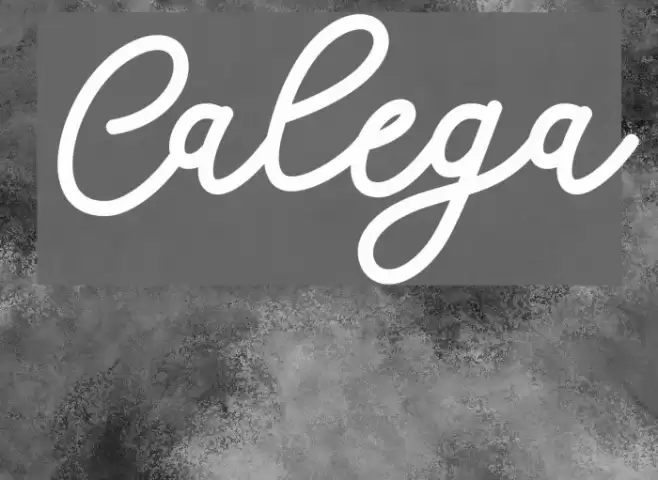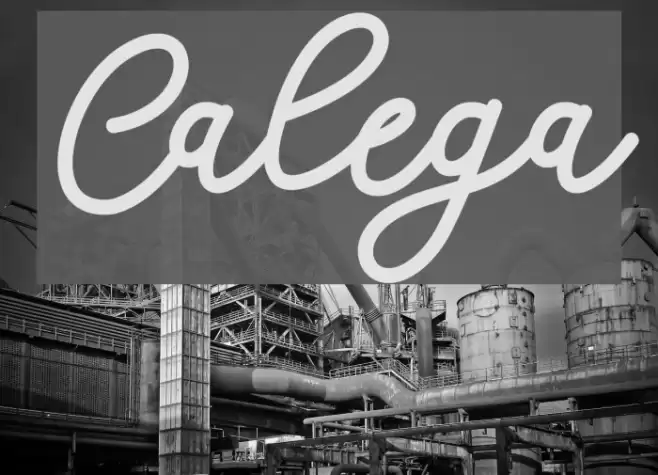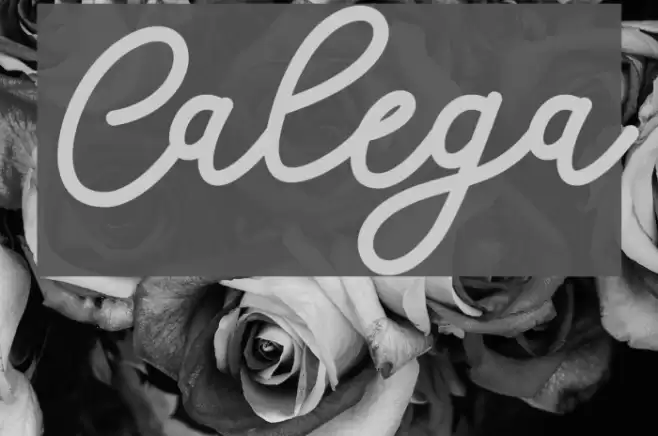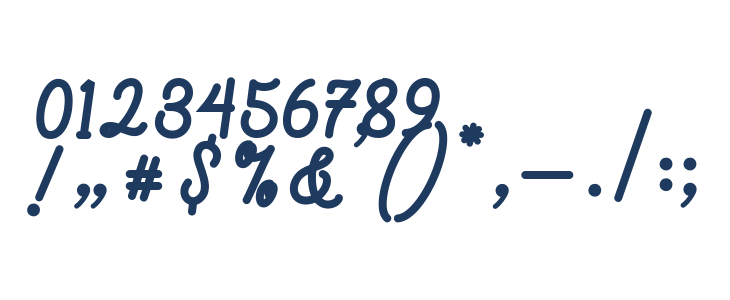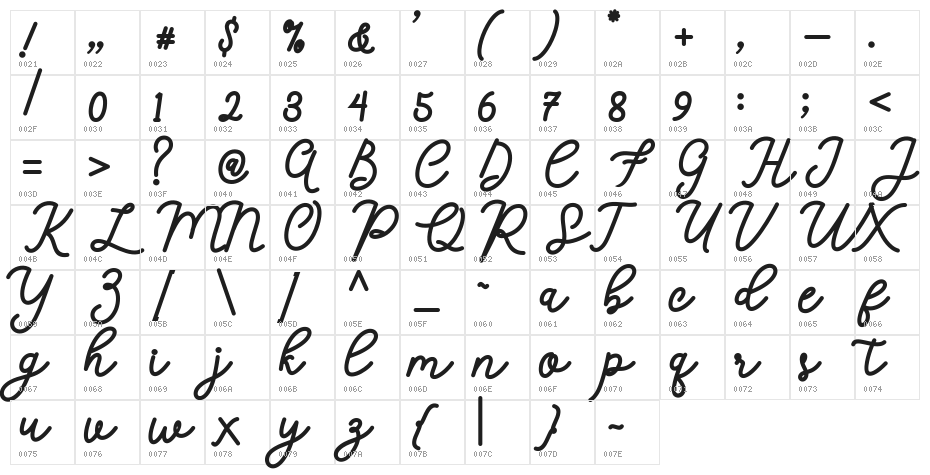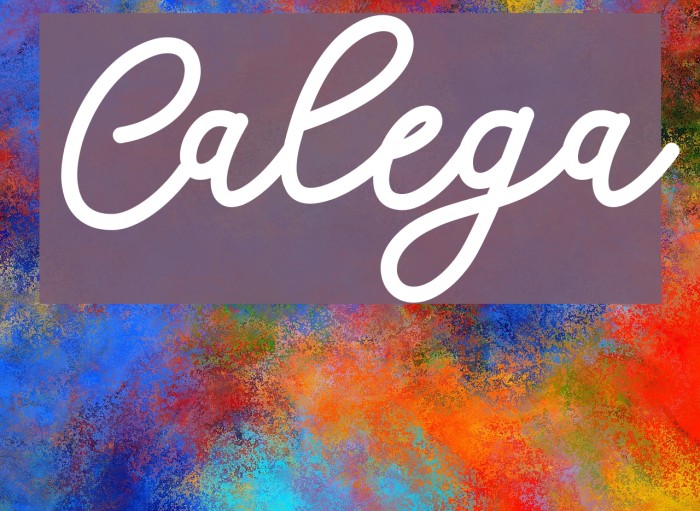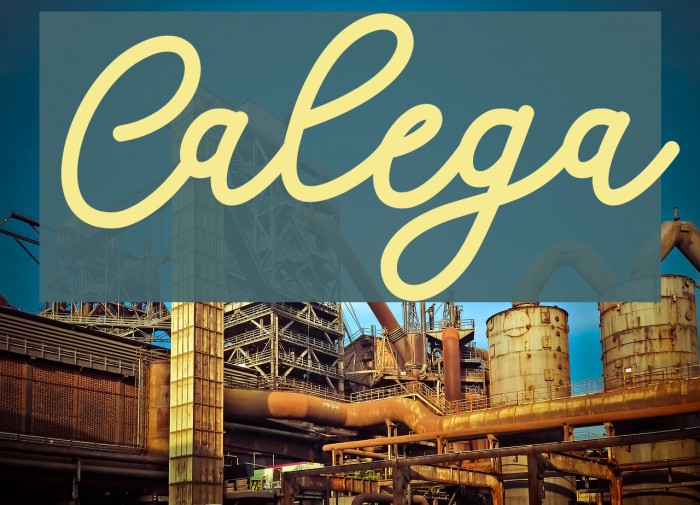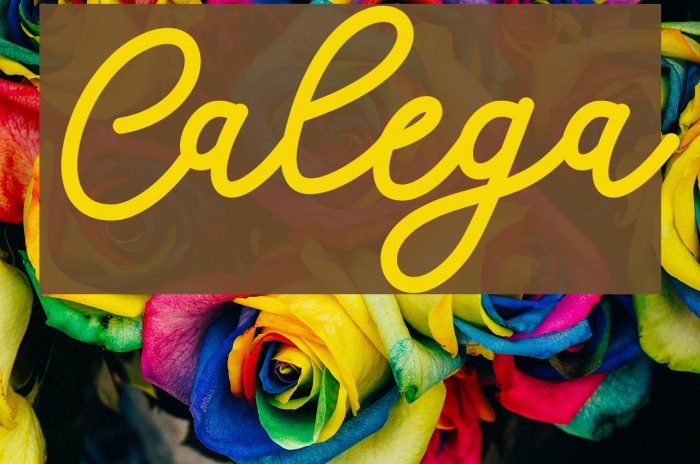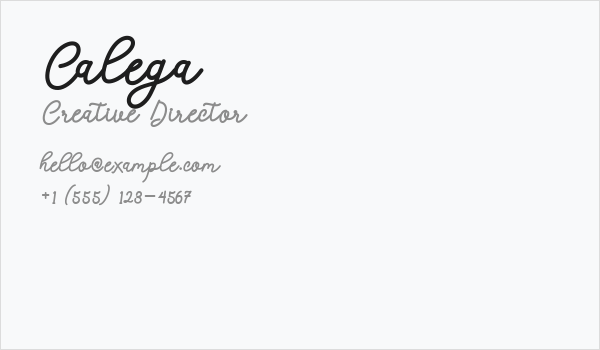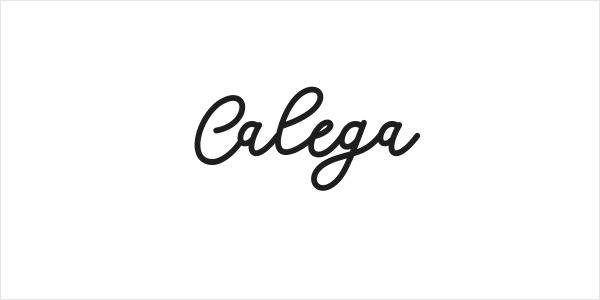
Calega Font
Calega Description
This font showcases a playful and elegant script style, characterized by its fluid, cursive strokes and smooth curves. The uppercase letters exhibit a graceful flow, while the lowercase letters maintain a consistent rhythm, enhancing readability. The numerals are bold and rounded, complementing the overall aesthetic. Special characters are thoughtfully designed, maintaining the font's cohesive look. This font's style is both modern and timeless, making it versatile for various design needs.
A playful and elegant script font with fluid, cursive strokes from Uncategorized fonts.
- Proposed Projects: Ideal for wedding invitations, greeting cards, branding projects, and elegant packaging designs.
- Use Case: Logos, Invitations, Decorative text